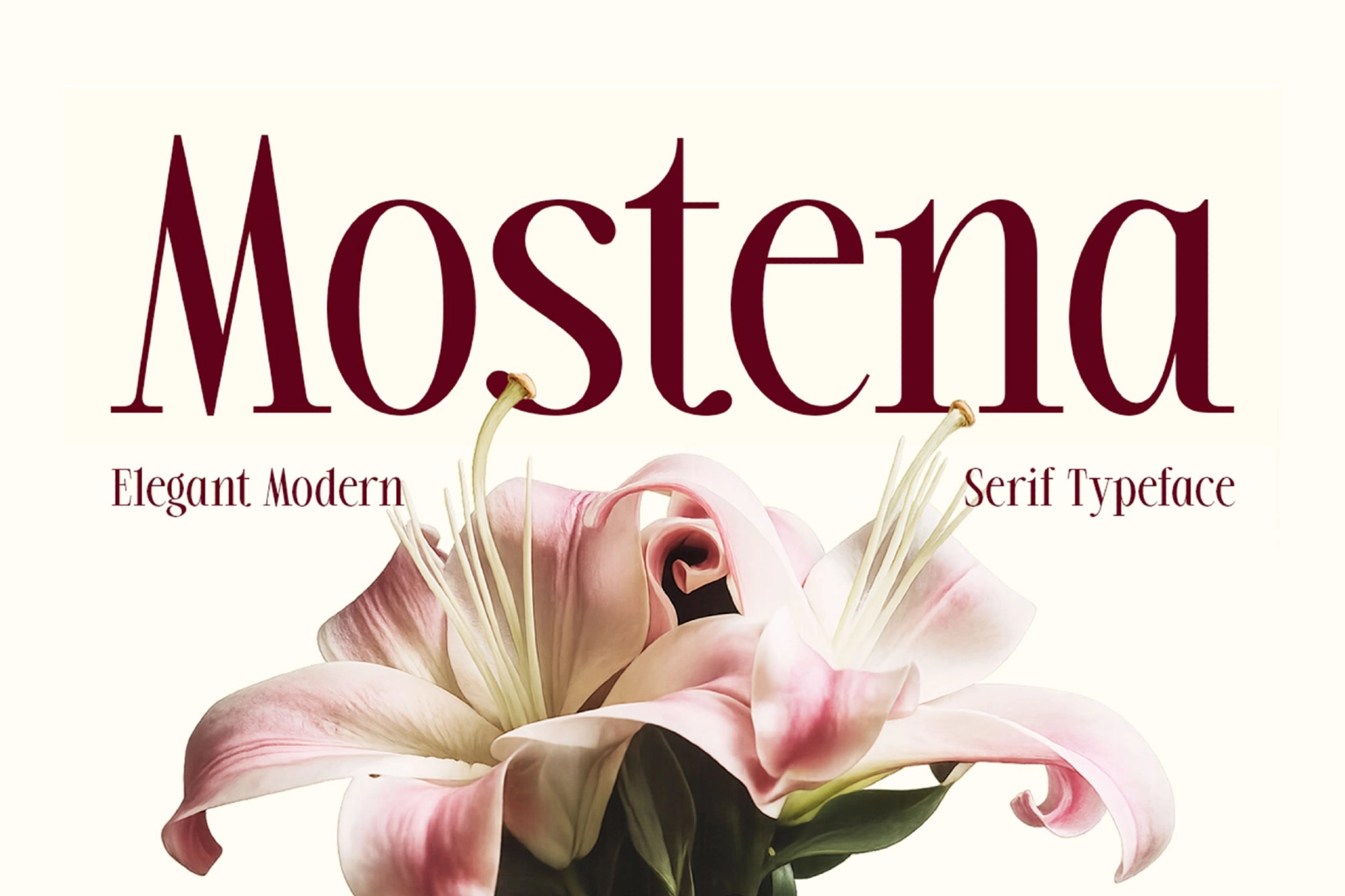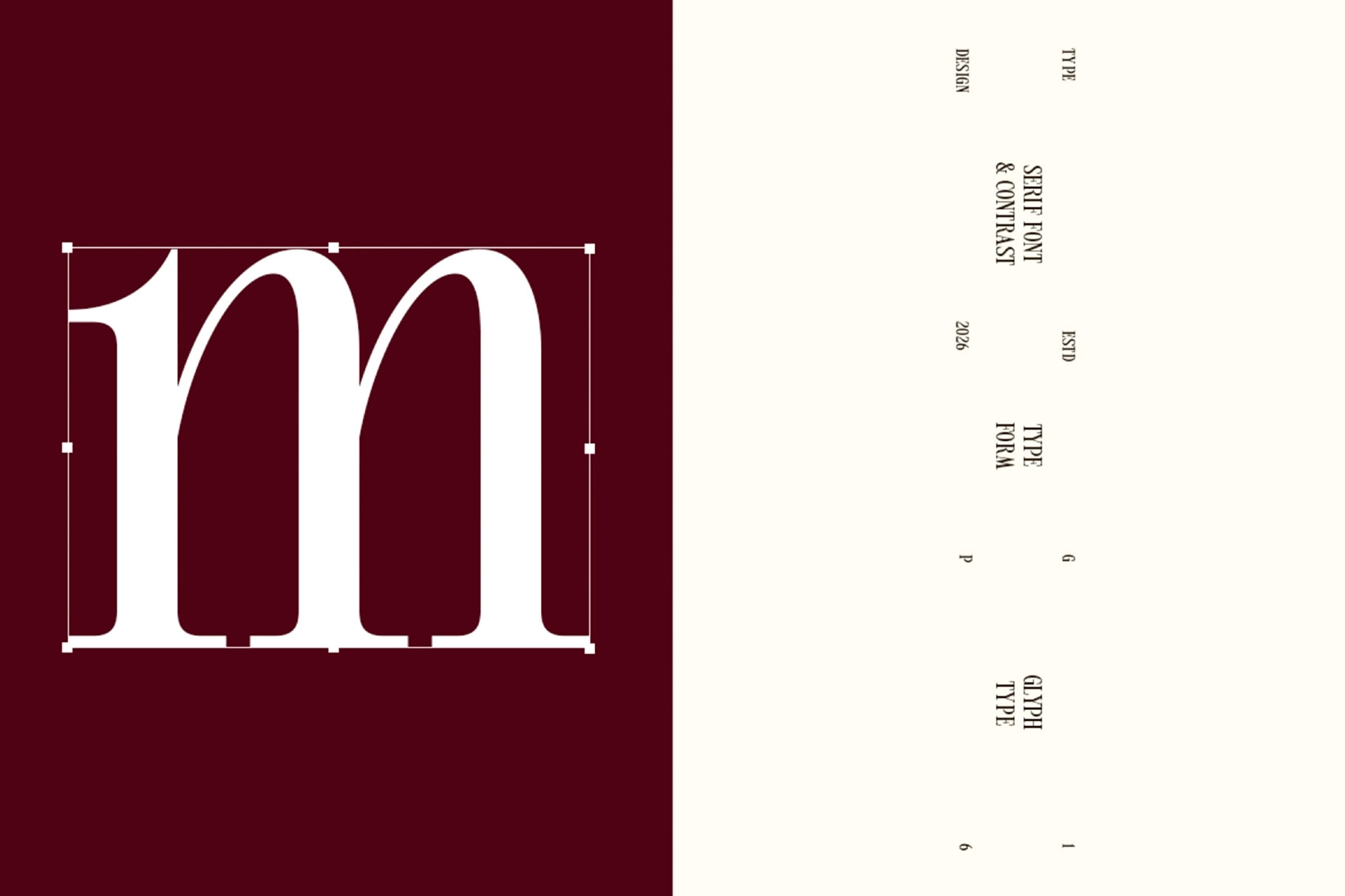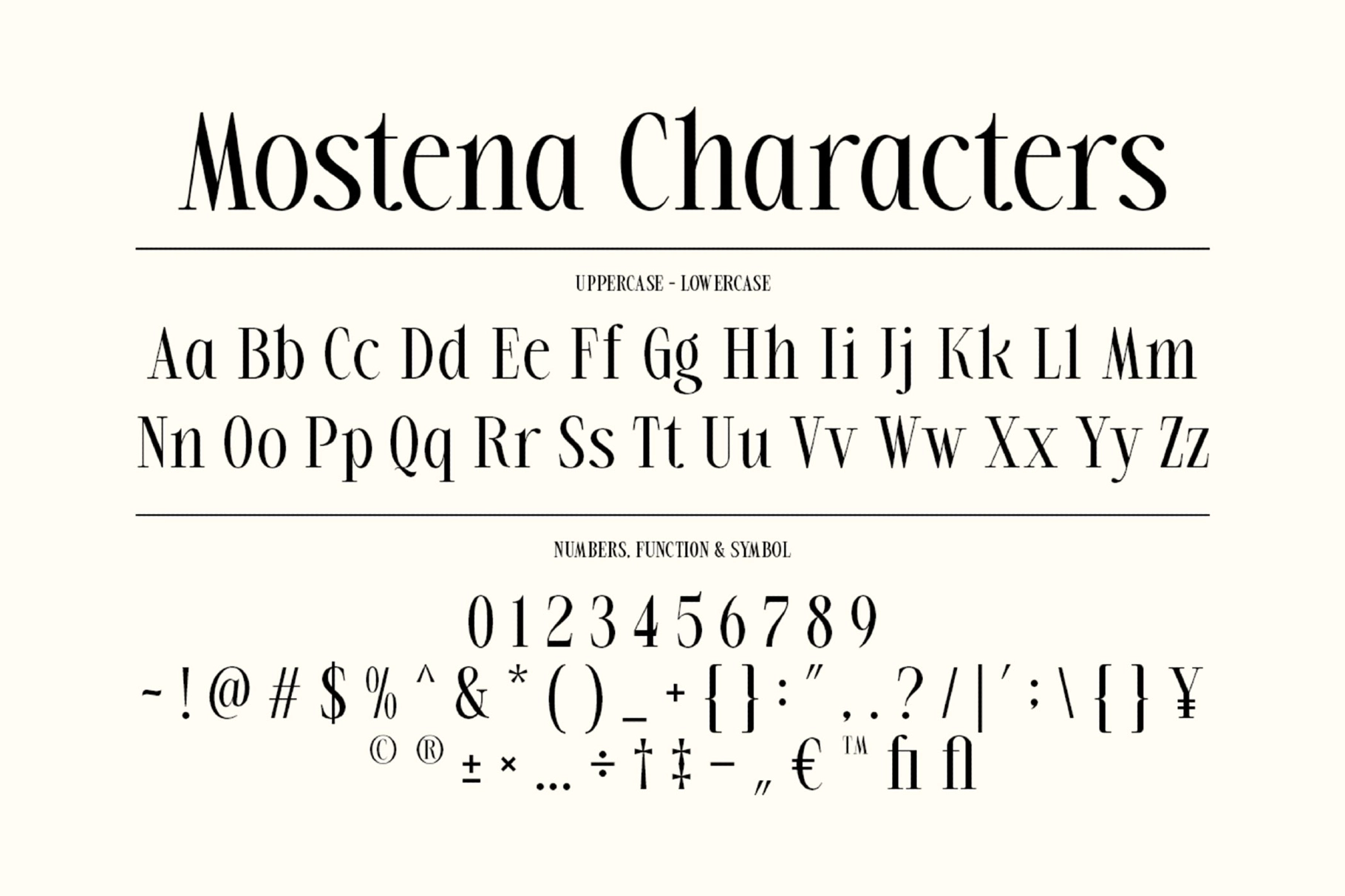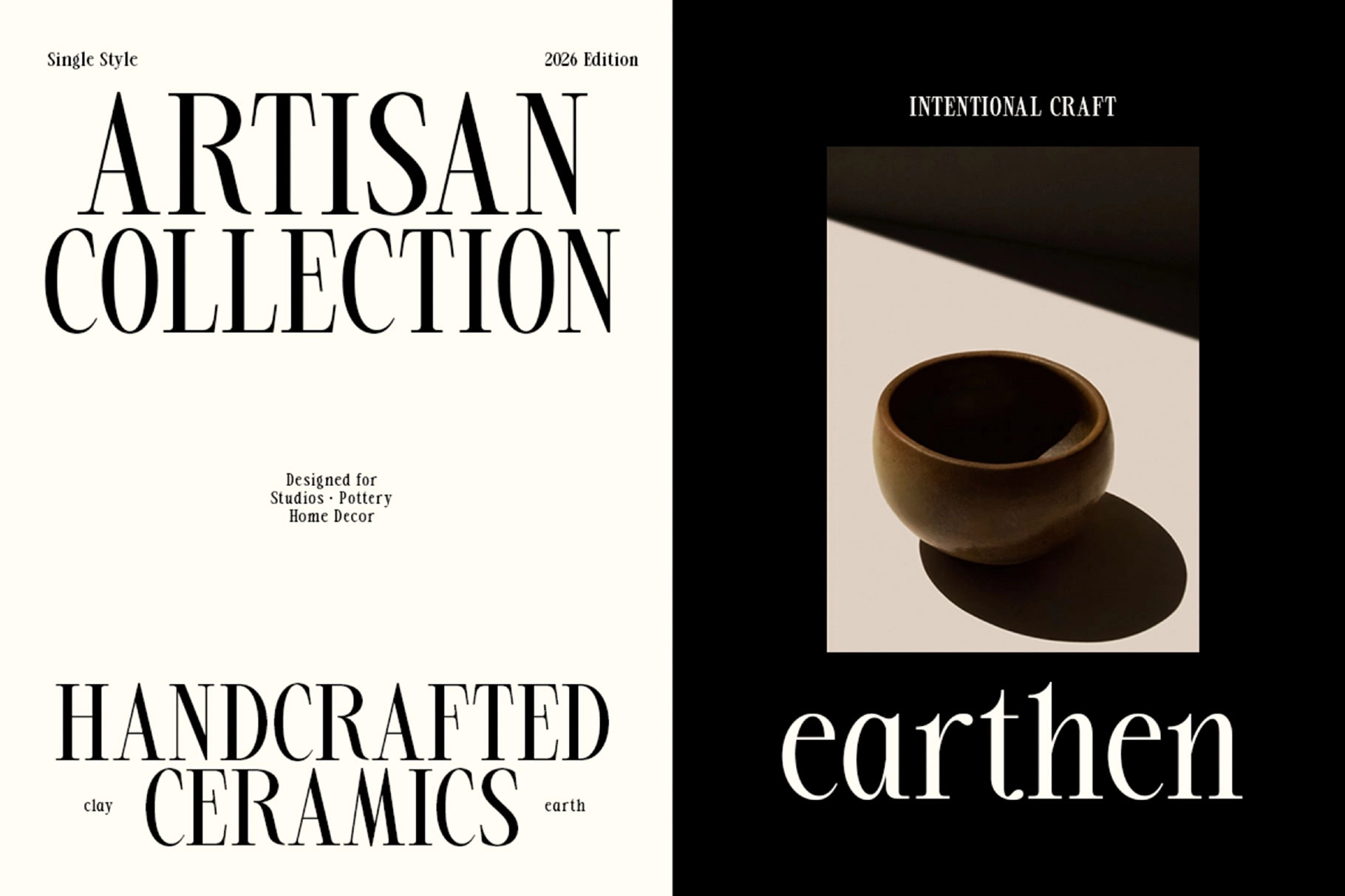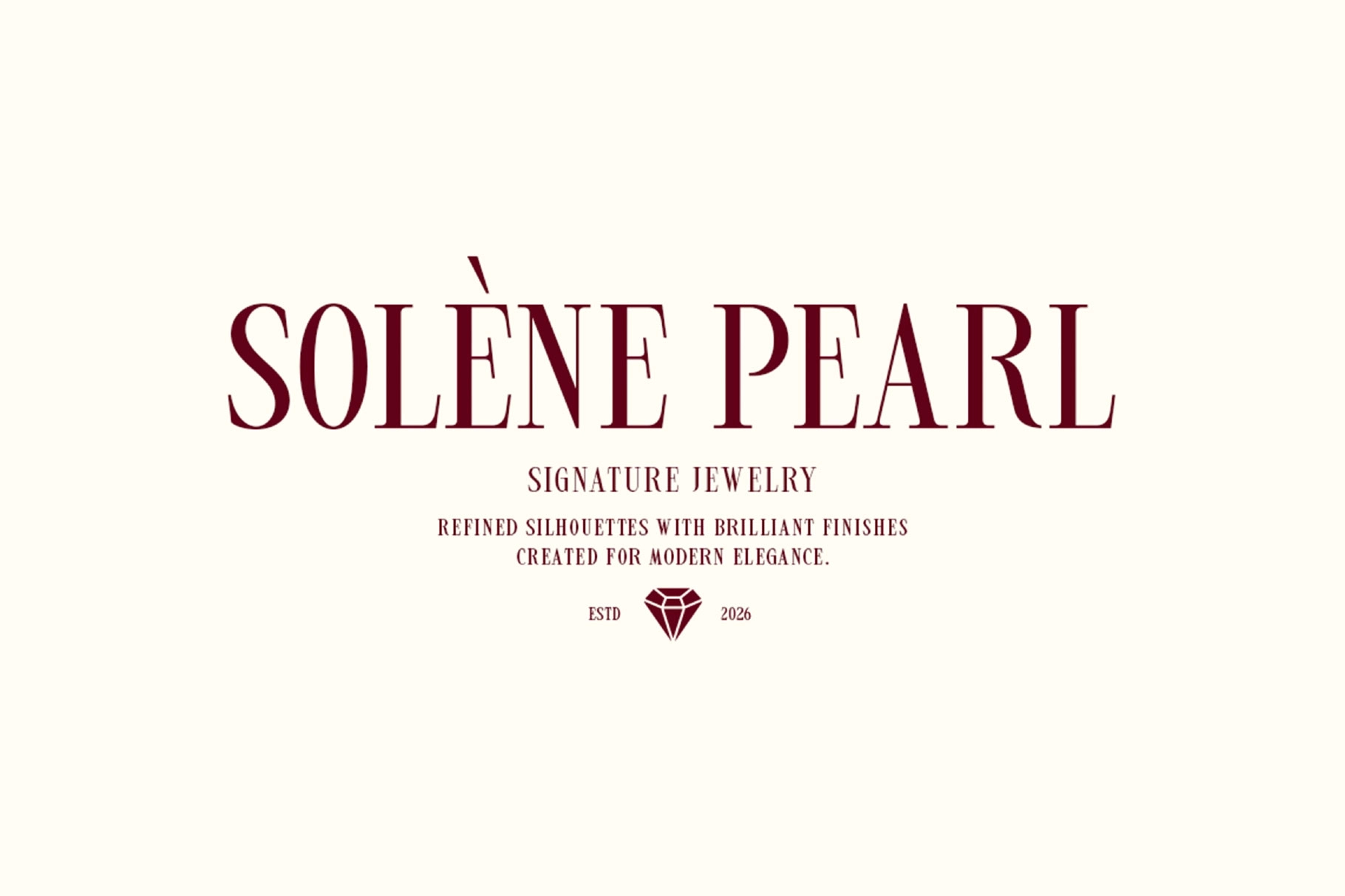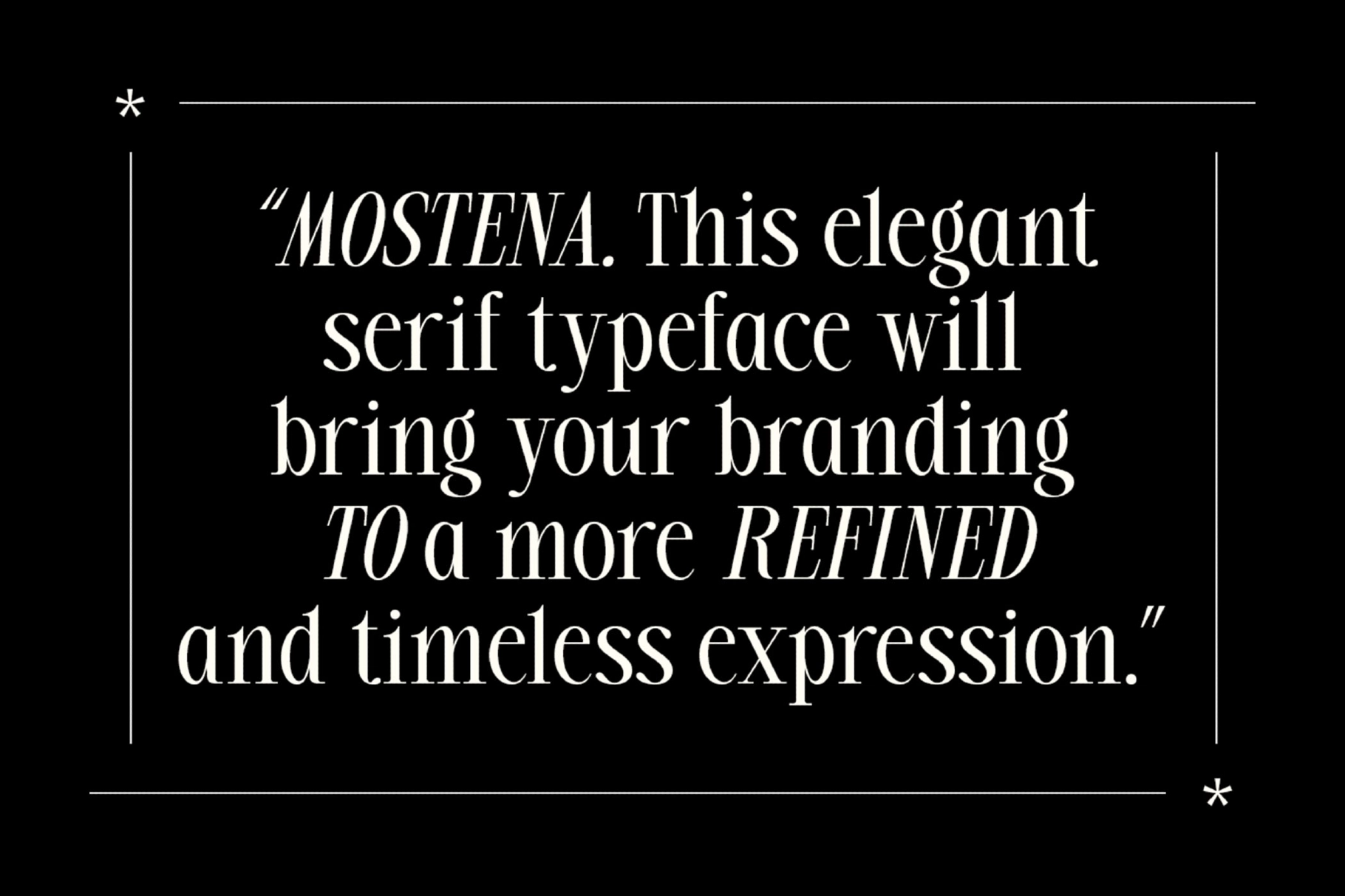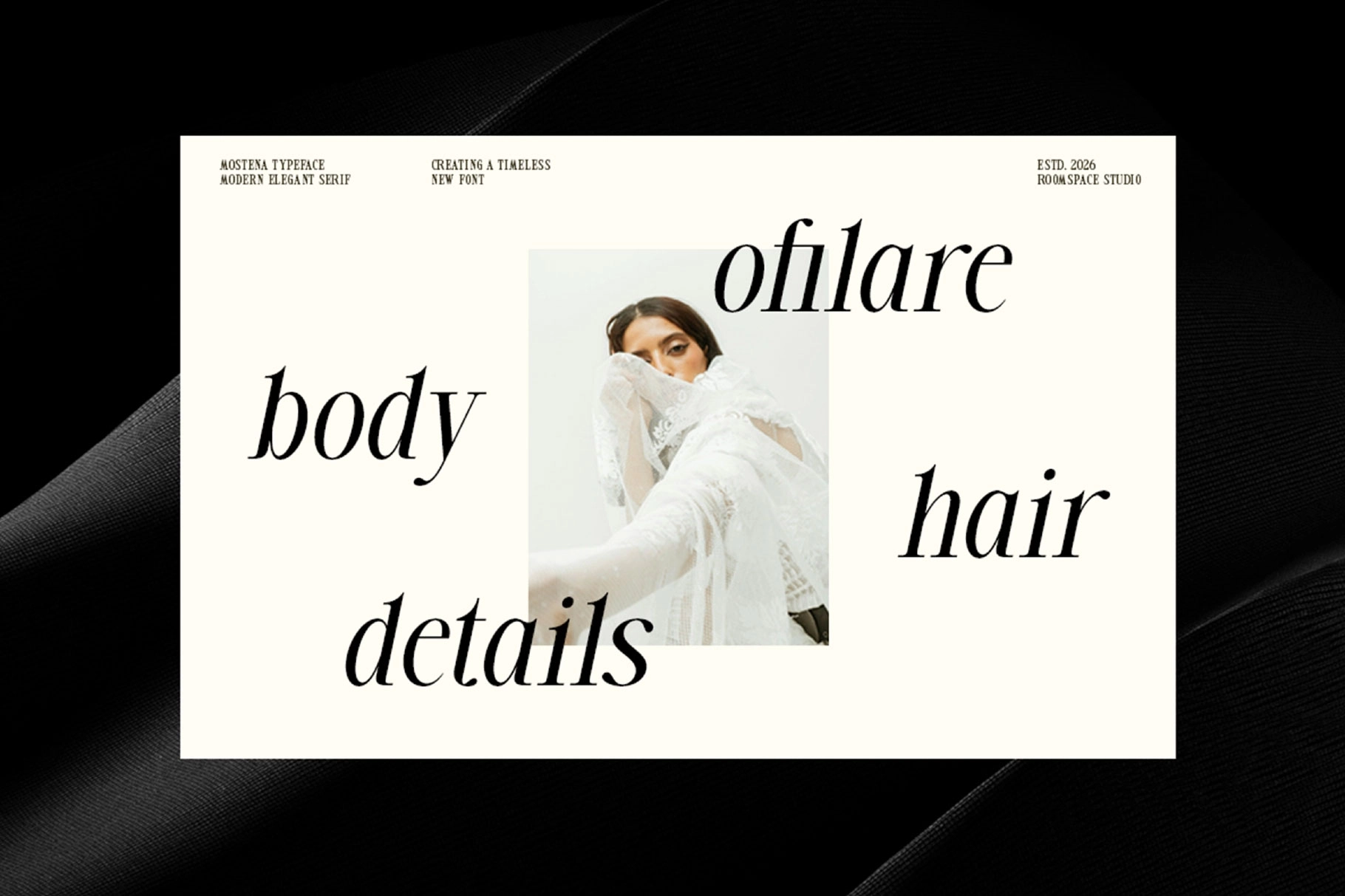
Mostena - Modern Elegant Serif Font
Mostena takes its poise from fashion-magazine mastheads and fine-jewelry nameplates, its rounded bowls tapering into hairline strokes wherever a thick stem gives way to a curve. This high-contrast serif font keeps a graceful, editorial rhythm that reads as luxury at both display sizes and running text.
Mostena works best in short, confident lines where the contrast can breathe: headlines, nameplates, and pull quotes hold up better than dense paragraphs. Use it for luxury branding, fashion editorials, beauty packaging, jewelry logos, magazine spreads, wedding invitations, premium packaging, boutique signage, website headers, event stationery.
- 2 styles: Regular, Italic;
- Uppercase & lowercase;
- Numerals, punctuation & symbols;
- Ligatures, ordinals & superscript figures;
- Multilingual support;
- 227 glyphs total